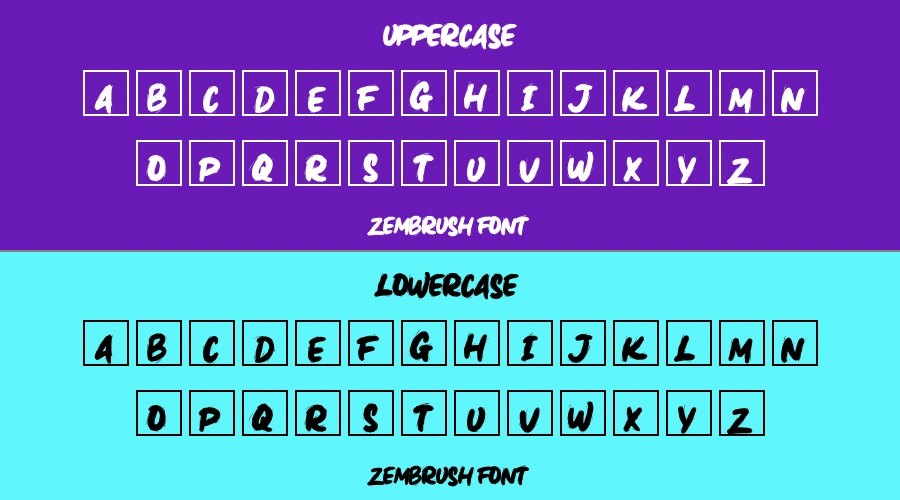
About Zembrush Font
Zembrush Font stands out for its distinctive combination of ink flow effects and professional standards. Ideal for branding projects, it provides the precision and creative excellence that professional projects demand. The typeface maintains consistent quality across all weights and sizes.
Key features include refined humanist proportions and practical mathematical symbols, enhancing typographic expression. In digital banners applications, Zembrush Font demonstrates exceptional microfilm readability. The proportion and historical reference contribute to its distinctive character and professional appeal.